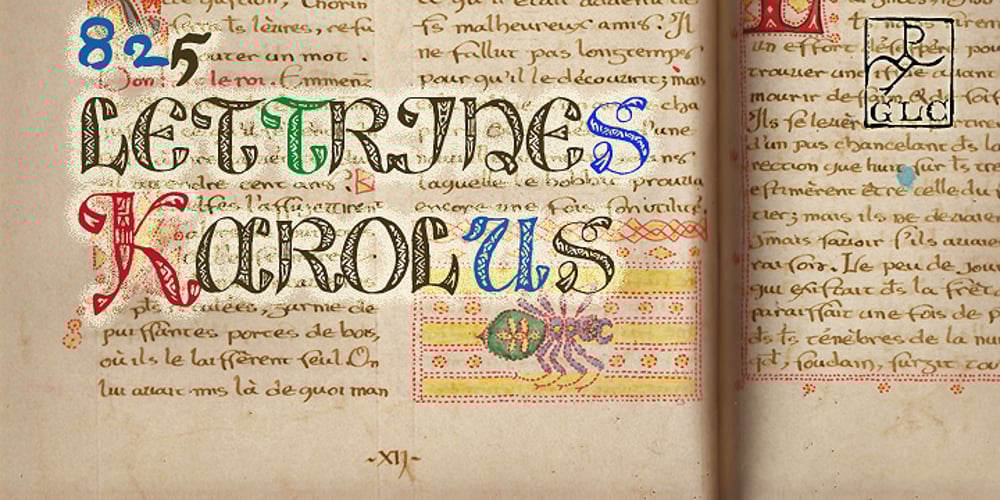
825 Lettrines Karolus Font Family was designed by published by GLC. 825 Lettrines Karolus contains 1 styles and family package options. We have created this font as a complement for the 825 Karolus. It is a set of decorated letters in the style of those used by the scribes during the early medieval era. It is inspired from a manuscript copy of “The Hobbit” (in Caroline style) that we obtained in the year 2000 as a present for our daughter’s 15th birthday.